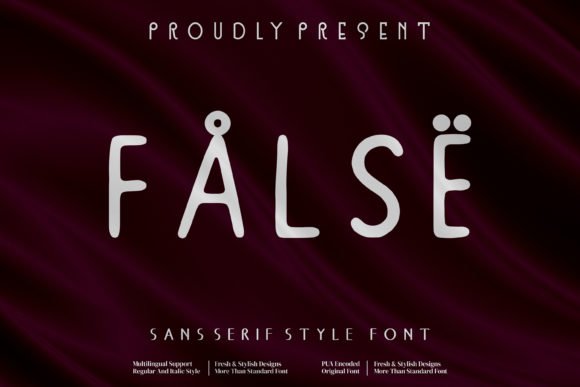
Introduction to False Note Font
False Note is a beautiful sans serif font suitable for any projects such as logos, branding projects, homeware designs, product packaging, mugs, quotes, posters, shopping bags, t-shirts, book covers, name cards, invitation cards, greeting cards, label, photography, watermark, special events, and all your other luxury projects that need a premium taste.
False Note is a beautiful sans serif font suitable for any projects such as logos, branding projects, homeware designs, product packaging, mugs, quotes, posters, shopping bags, t-shirts, book covers,